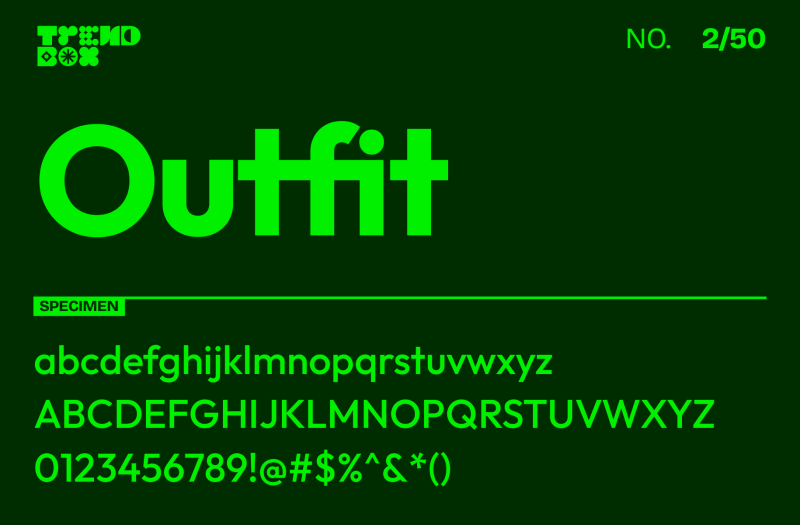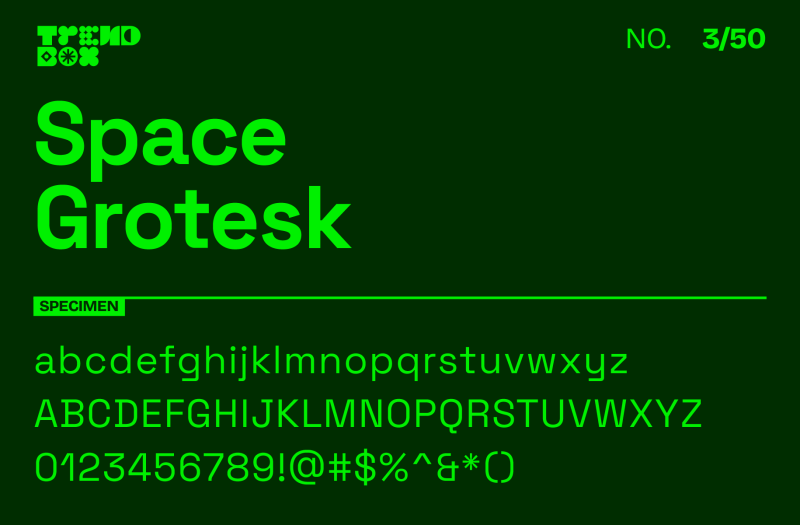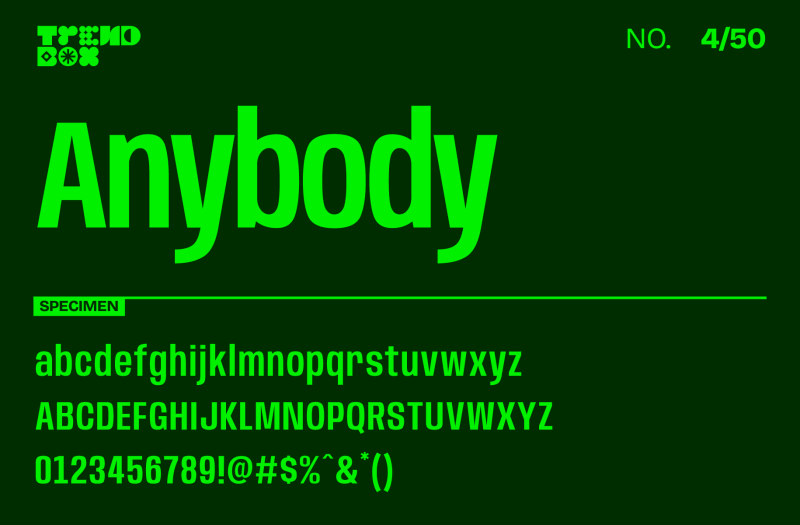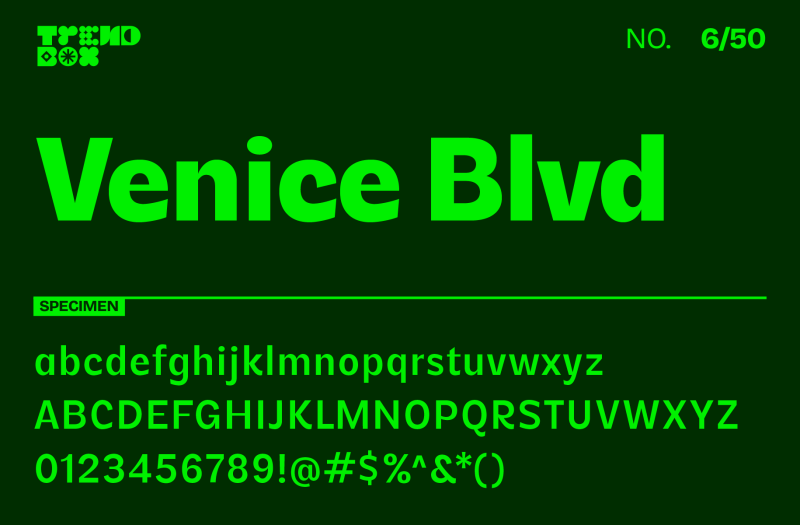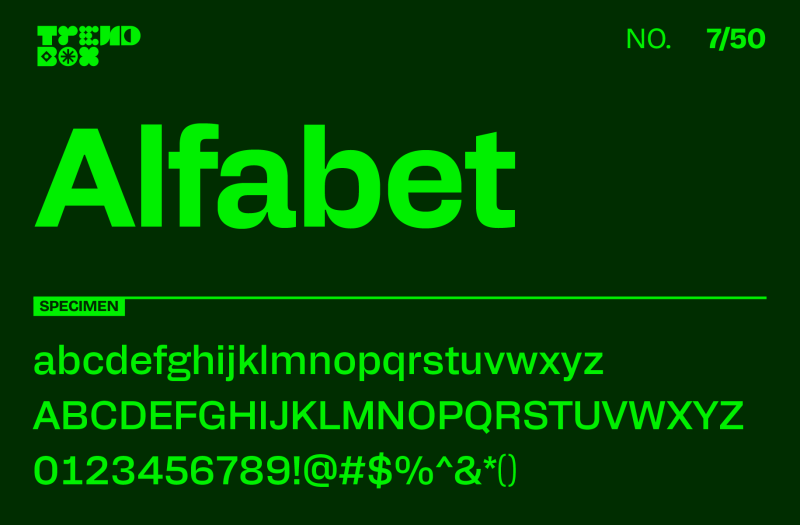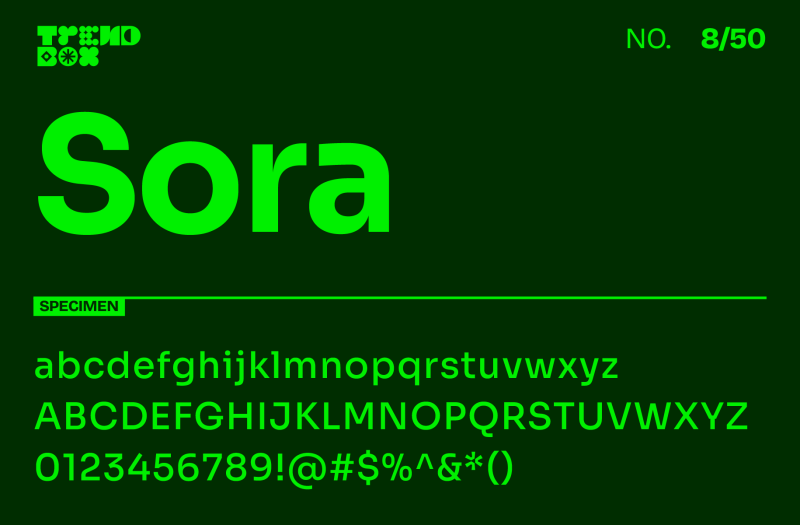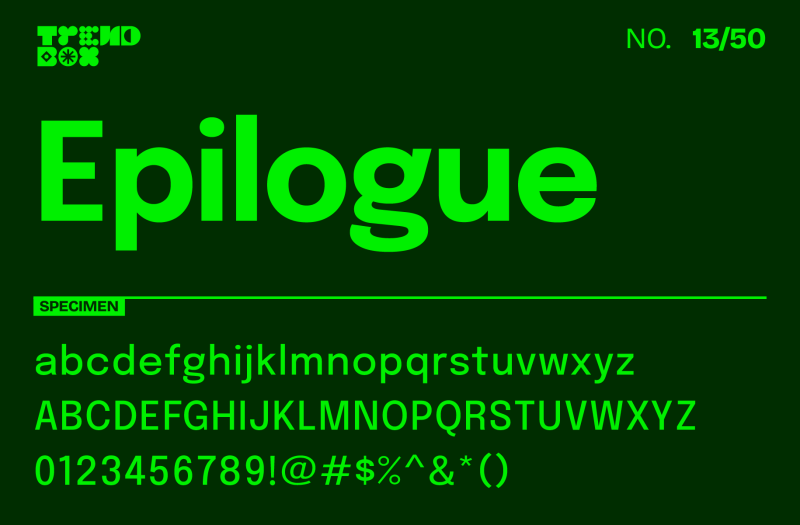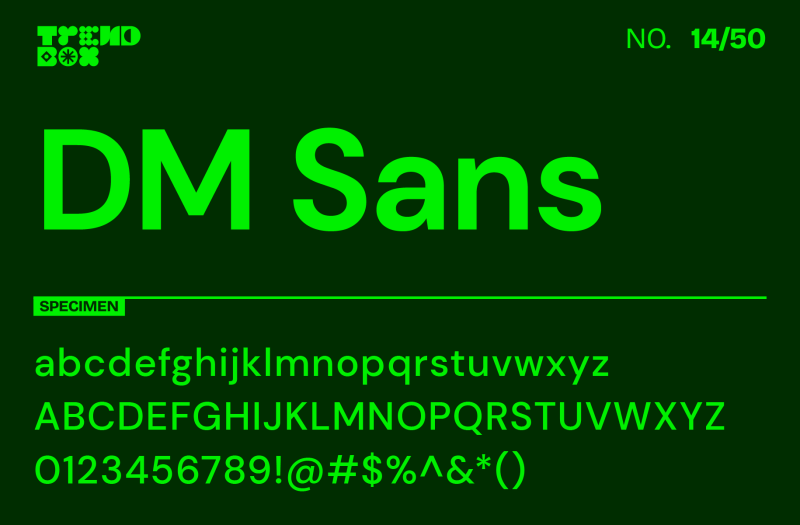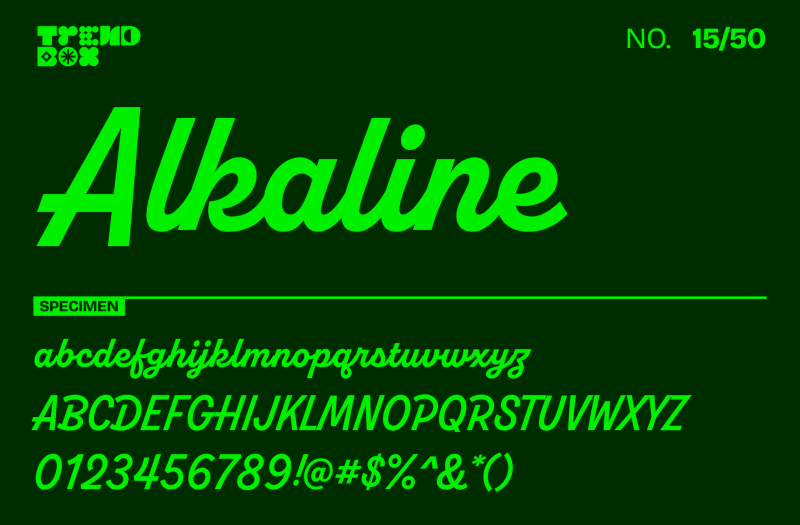
Looking back at the fonts that shaped 2025, we teamed up with 11 designers to gather the ones that stood out the most. These are free, commercial-use fonts you can drop into a project right away and feel confident about.
Choosing the right typeface can take time, especially when you want something that feels fresh but still works across print and digital. This collection brings together fonts that are simple to use, full of personality, and reliable for everyday design work.
For now, here are the free fonts we loved throughout 2025.
50 of the best 2025 fonts
1. Bricolage Grotesque
If you're after the next big geometric sans-serif, Bricolage Grotesque byMathieu Triay is one to watch in 2025. This typeface cleverly combines unique, playful details with excellent readability, making it equally suited to eye-catching display text and body copy.
Bricolage Grotesque’s seven weights, each with matching italics, provide designers with a versatile toolkit—perfect for everything from modern branding and editorial work to sleek digital interfaces. Balancing personality with professionalism, it’s poised to be a standout choice for any project needing character without sacrificing clarity. Expect this font to bring that perfect touch of distinction to your designs in 2025.
2. Outfit
Outfit, a clean and versatile geometric sans-serif, is perfect for both contemporary branding and straightforward user interfaces. This font family, crafted by Rodrigo Fuenzalida, is optimized to bring clarity and style to a variety of digital and print projects, from logos and app interfaces to presentations and marketing materials. With nine weights ranging from thin to black, Outfit offers flexibility for a cohesive visual hierarchy across headlines and body text. Its modern, unassuming design makes it a popular choice for creatives who want an adaptable and professional typeface that still brings a bit of edge.
3. Space Grotesk
Space Grotesk, designed by Florian Karsten, is a modern, space-inspired sans-serif typeface that brings a futuristic edge to any design. This font is a reimagining of the classic Space Mono, balancing functional design with bold character. Ideal for tech-forward brands, UI design, and editorial projects. Its distinct letterforms and high legibility make it an excellent choice for both display and text, delivering a striking, clear look in any context. With five weights available, Space Grotesk provides enough range to create visual hierarchy without overwhelming the viewer, making it a reliable choice for designers who want sophistication with a twist.
4. Anybody
Anybody is a unique sans-serif typeface designed by Eben Sorkin that brings a bit of playful personality to the modern sans genre. Its round letterforms and approachable structure make it perfect for branding, headlines, and even engaging digital interfaces. With 8 weights and 18 styles, Anybody is both versatile and visually interesting, providing options for subtle to bold text. This typeface shines when used in branding projects, social media graphics, and children’s content, adding warmth without sacrificing readability. It’s a font choice that speaks to inclusivity and friendliness in any project.
5. Plus Jakarta Sans
Created by Tokotype, Plus Jakarta Sans is a contemporary sans-serif designed with both function and style in mind. This typeface offers a clean, versatile structure that’s well-suited to editorial, web, and corporate projects. Known for its clarity and balance, Plus Jakarta Sans is a reliable option for designers who want a professional look with a modern edge. Available in nine weights with matching italics, this typeface provides enough range for comprehensive branding needs, creating impact in both headings and body text.
6. Venice Blvd
Last year, the wonderful designer duo Amy Hood and Jen Hood from Hoodzpah were included in the evergrowing font library from Adobe Fonts. With several typographic beauties from the sisters being added to the platform, Venice Blvd is definitely one of our favorites. With their amazing roster of typefaces, they definitely are among our favorite Adobe fonts and it’s amazing that some of their releases are now made available as free fonts.With 4 different weights, 4 italics, and plenty of extra symbols, this retro-inspired font is the perfect choice for any project that needs to bring some nostalgia to the table. Next to the 5 fonts that are currently available on Adobe Fonts, they have built some other lovely typefaces as well that you need to check out.
7. Alfabet
Designed by Mateusz Machalski and is the result of over 3 years of work on a typeface inspired by Swiss and German designers & researchers. The main idea was to create a sans-serif with a geometric and strong feeling. It’s one of those free fonts that are such a powerful asset to keep up your sleeve.
The whole type family will work wherever we want to emphasize modernity and a rational way of visual thinking. Alfabet is the perfect choice for multiscript branding purposes, all styles support Latin, Greek, and Cyrillic scripts.
And remember when everyone said you had to convert fonts to outlines for printing? Maybe it's time we take a fresh look at that one! We published an interesting article about this a while ago and you might want to check this out.